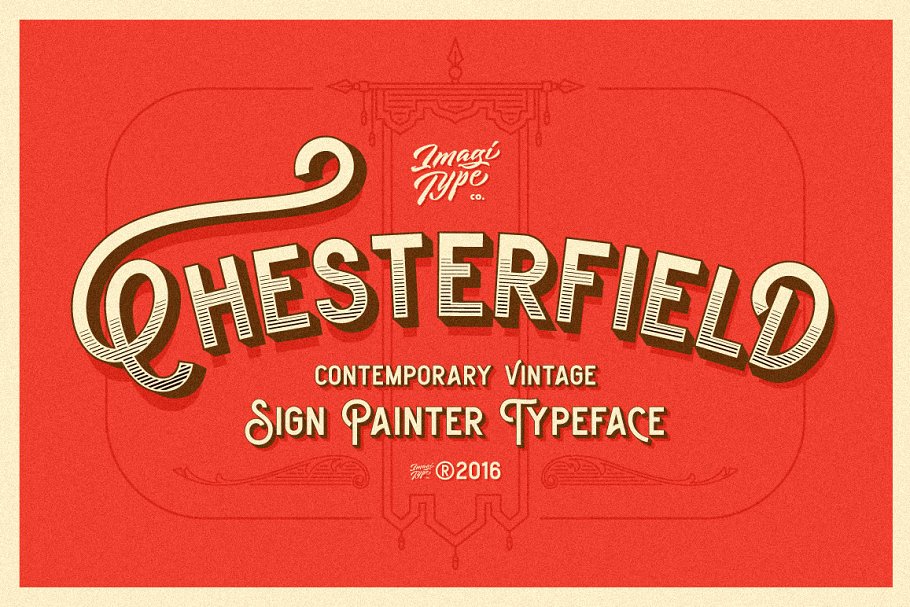
Introducing Chesterfield Typeface - the Best Font For Dollar Sign that you've been searching for! Created by Imagi Type, this font family is inspired by the carnival, circus, and tattoo sign shop from the late 1800s, giving it a vintage yet trendy vibe.
Chesterfield™ is the perfect choice for designers looking to make a statement with their typography. Its unique style is perfect for creating eye-catching displays, logos, posters, and more. The font family works well with normal-sized text, but it truly shines when used for large displays, short words, or even just a few or single characters in a design.
What sets Chesterfield™ apart from other fonts in its category is its versatility. It can be used for a wide range of projects, including vintage-inspired designs, modern branding, or even edgy tattoo designs. This makes it the ideal choice for designers who want to add a touch of personality and flair to their work.